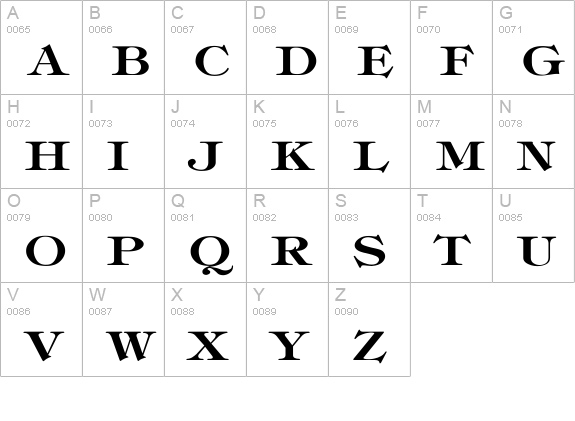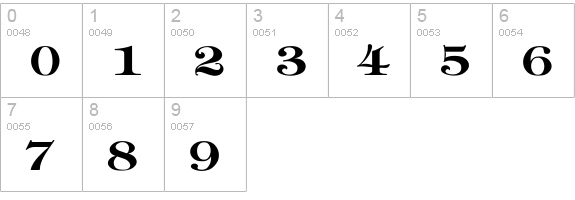
Tiffany-Bold Wd is a strong, high-contrast variant in the Tiffany typeface family \xE2\x80\x94 well suited to headlines, attention-grabbing titles, and strong calls-to-action.
Tiffany-Bold Wd font is a stunning display font that exudes elegance and sophistication. With its bold and impactful letterforms, this font is perfect for headlines, titles, and any design that requires a touch of boldness. The unique, wide design adds an extra level of flair and character to any project. What makes Tiffany-Bold Wd font even more enticing is that it is available for free! Yes, you read that right. This remarkable font can be freely downloaded at FontsMarket.com, allowing you to enhance your designs without breaking the bank. Whether you're a professional designer looking for a versatile font to add to your collection or a beginner wanting to experiment with typography, Tiffany-Bold Wd font is a must-have. Its versatility and timeless appeal make it suitable for a wide range of projects, from branding and advertising to invitations and posters. The attention to detail in Tiffany-Bold Wd font is evident in its meticulously crafted letterforms. Each stroke and curve has been carefully designed to create a harmonious balance between elegance and legibility. The bold weight ensures that your message will be seen and heard, commanding attention without sacrificing readability. With Tiffany-Bold Wd font, you can create designs that stand out from the crowd and leave a lasting impression. Its bold, wide design makes it perfect for headlines, logos, and branding materials, allowing your message to be seen and remembered. Whether your project calls for a touch of sophistication or a bold statement, this font delivers with style. So why wait? Download Tiffany-Bold Wd font for free at FontsMarket.com and unlock a world of design possibilities. Elevate your projects with this stunning font and make a lasting impression on your audience. With its timeless appeal and freely available nature, Tiffany-Bold Wd font is a valuable addition to any designer's toolkit.